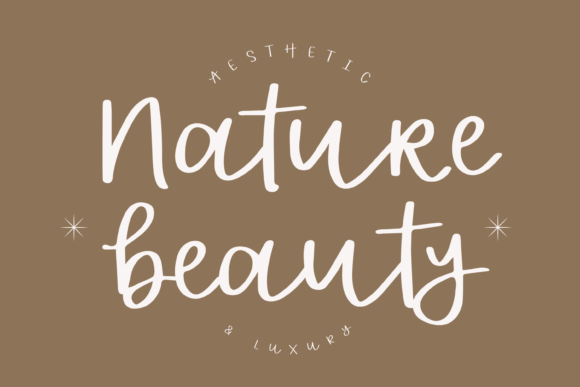
Introducing Nature Beauty Font, the epitome of modern elegance and sophistication. This stunning script font, created by The Gelato, is the perfect choice for those seeking to add a touch of class to their projects. With its delicate yet bold strokes and refined letterform, Nature Beauty exudes a captivating charm that will leave a lasting impression.
Imagine the impact this font will have on your wedding invitations. Its graceful and flowing characters will effortlessly convey love and romance, setting the tone for a truly memorable event. Your guests will be in awe of the beauty and sophistication that Nature Beauty brings to your special day.
But it doesn't stop there. Nature Beauty is also the ideal choice for luxury branding projects. With its timeless appeal, this font will effortlessly enhance your brand's image, leaving a lasting impression on your target audience. Whether you're designing a logo, packaging, or marketing materials, Nature Beauty will elevate your brand to new heights of elegance and prestige.
Editorial design is another realm where Nature Beauty shines. Its captivating and stylish aesthetic adds a touch of sophistication to any magazine spread or publication. From fashion editorials to lifestyle articles, this font will captivate readers and draw them into the world you've created.
What sets Nature Beauty apart is its ability to evoke emotions. Its graceful curves and meticulously crafted details have the power to stir feelings of joy, beauty, and elegance. With Nature Beauty, your designs will resonate with your audience on a deeper level, leaving a lasting impression and forging a strong emotional connection.